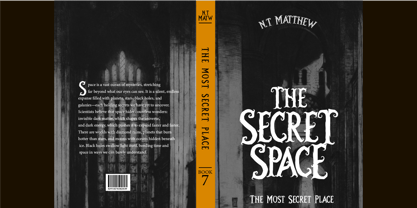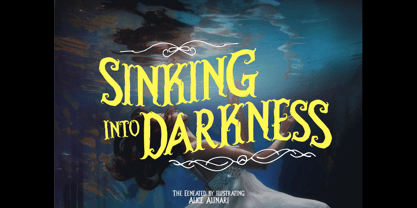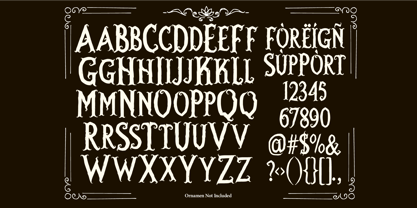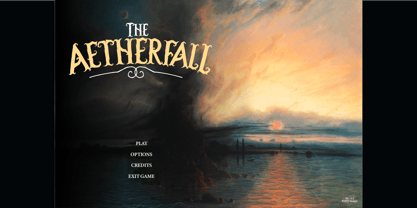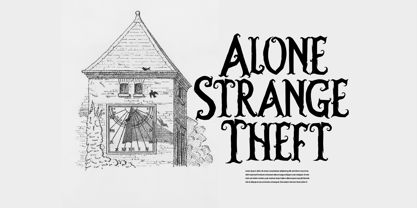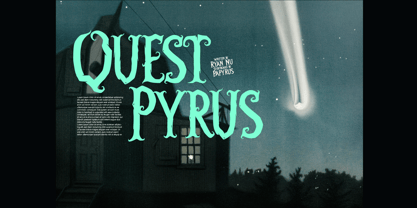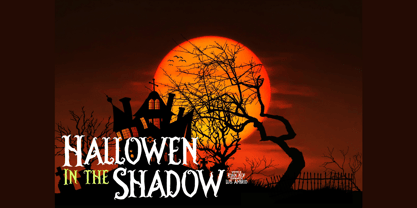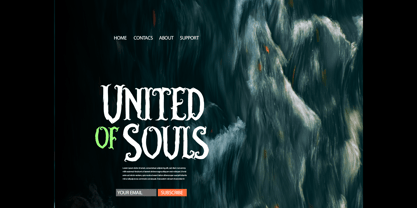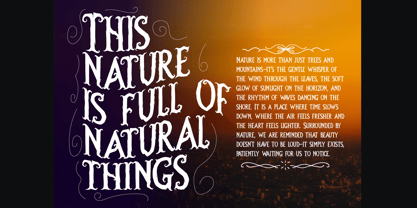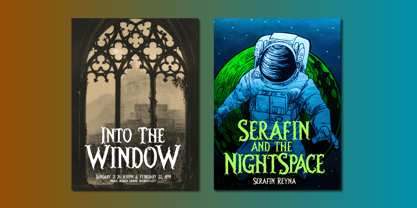
Halther
by ryan creative
The Halther Font Family was designed by ryan creative and published by ryan creative. Halther contains 1 styles.
Halther is a gothic–fantasy display serif font designed to bring a mysterious and dramatic touch to your projects. Perfect for horror posters, fantasy book covers, game branding, movie titles, or any design that needs a dark and magical vibe.
Features:
• All Caps font (Uppercase & Small Caps version)
• Multilingual support
With Halther, your design will stand out with a bold, elegant, and enchanting atmosphere. Add this font to your collection and create works that truly capture attention